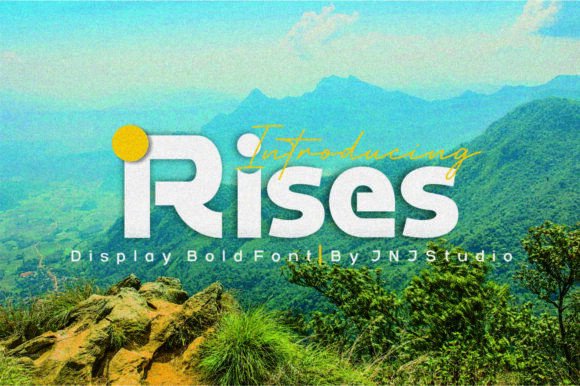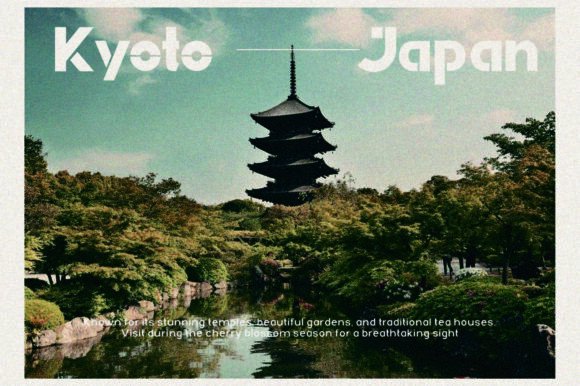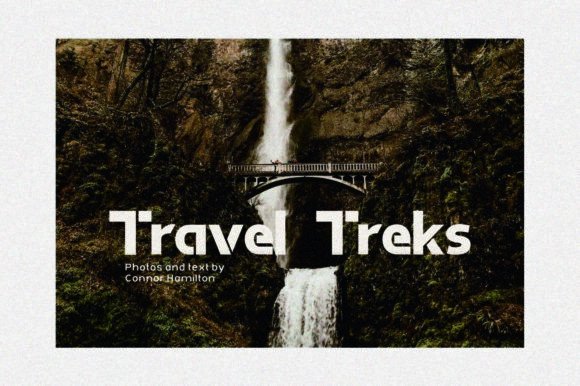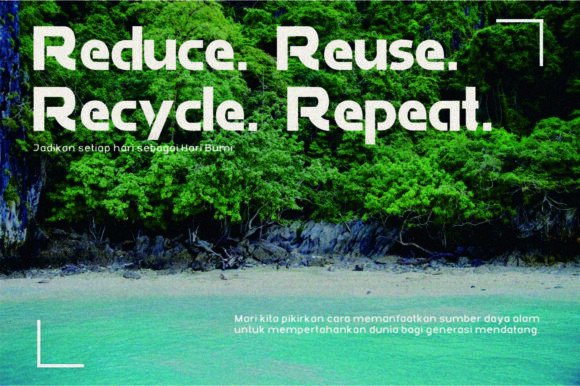
Rises Font: A Modern Bold Display Font for Eye-Catching Logos
About the Rises Font
Meet Rises Font, a stunning font that brings a touch of elegance and professionalism to any design. Introducing “Rises” is a powerful Display Bold typeface that commands attention with every letter. Designed for maximum impact, Rises features thick strokes, sharp angles, and a confident structure—perfect for headlines, posters, logos, and branding that need to stand tall and make a statement. Its bold presence radiates energy and modernity, while its clean edges ensure clarity and legibility even at large sizes. Whether you’re crafting a futuristic title or a daring visual identity, Rises brings strength, boldness, and unmistakable style.
Rises Font Usage Examples
Rises Font Example